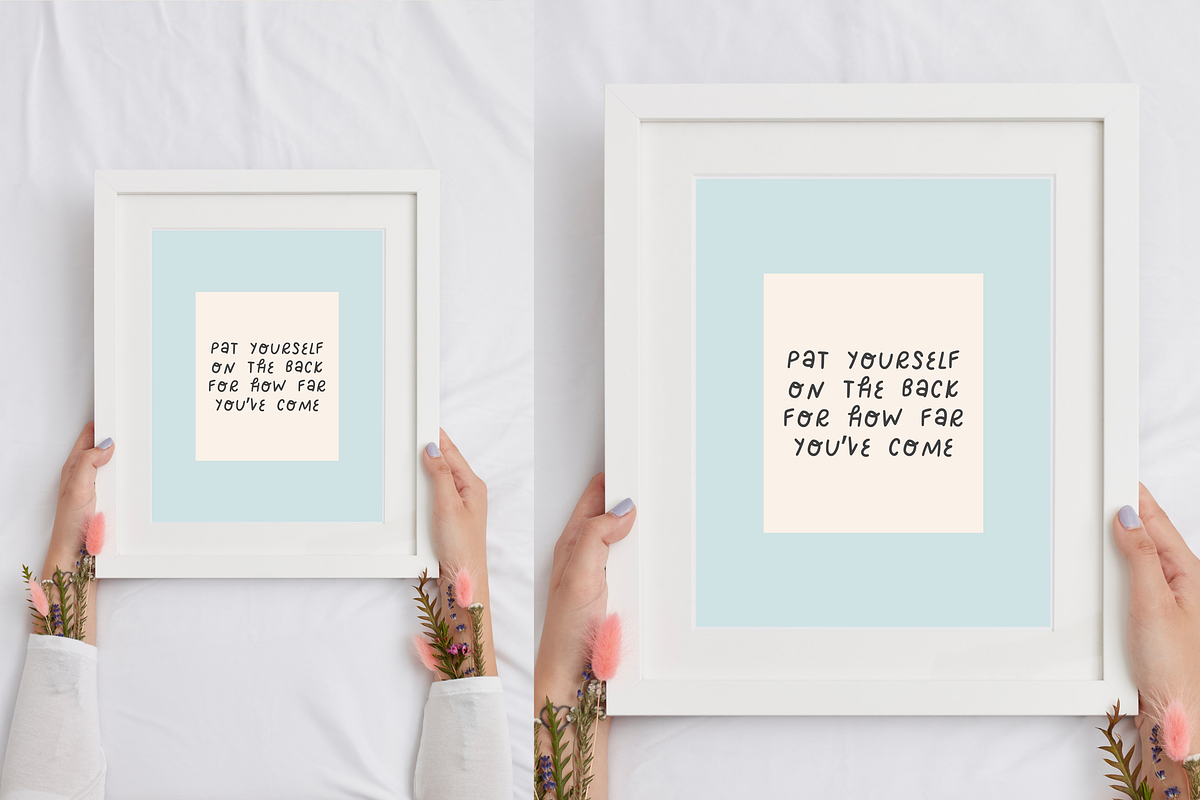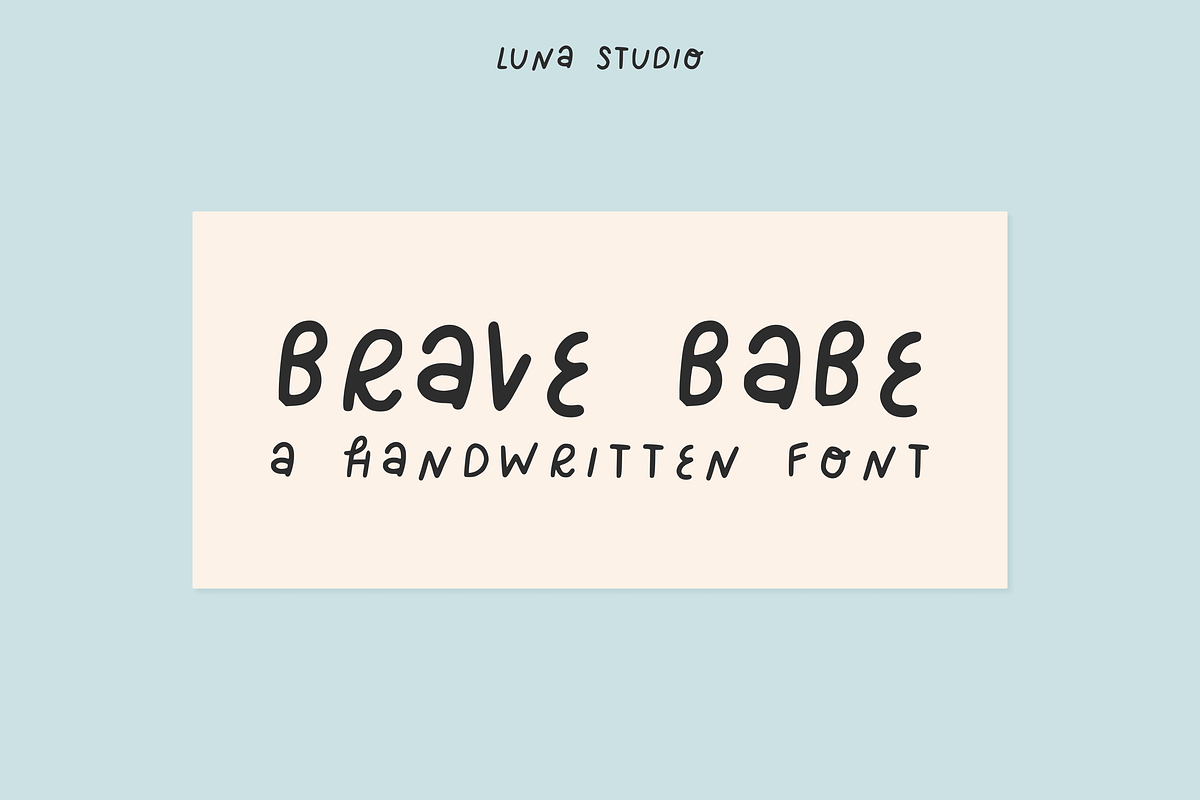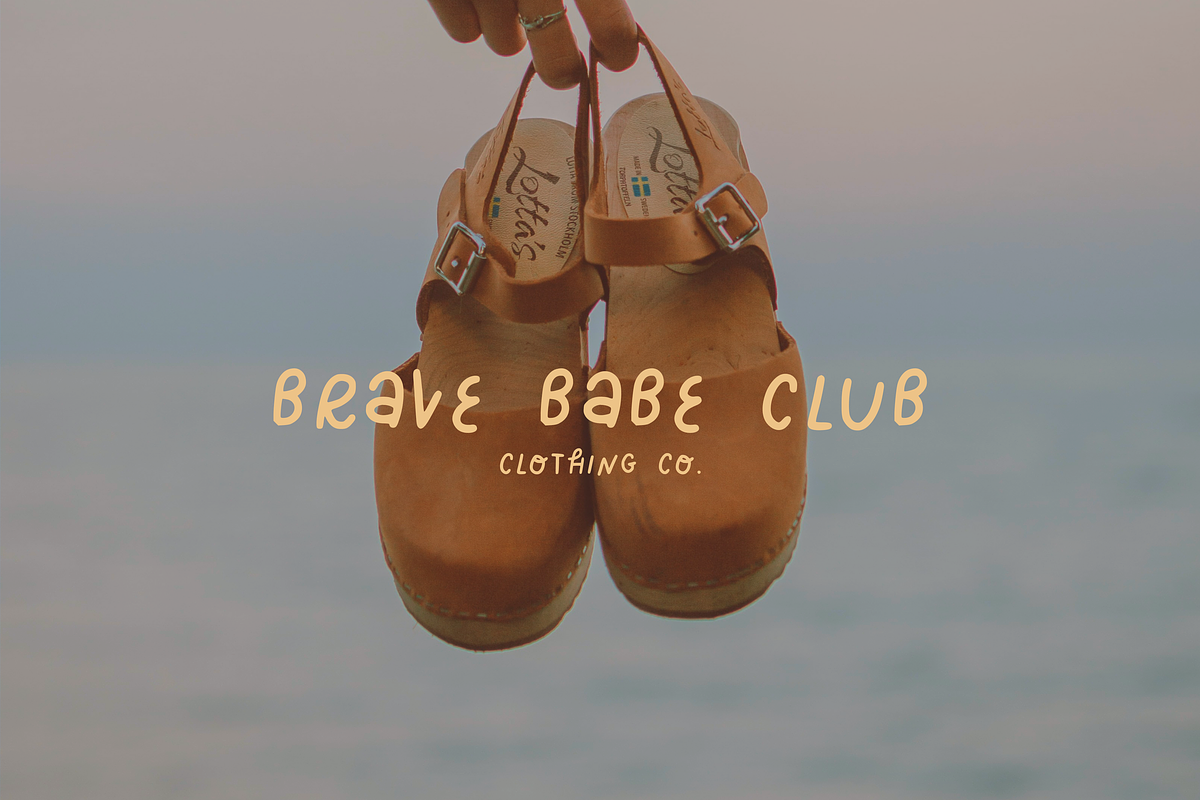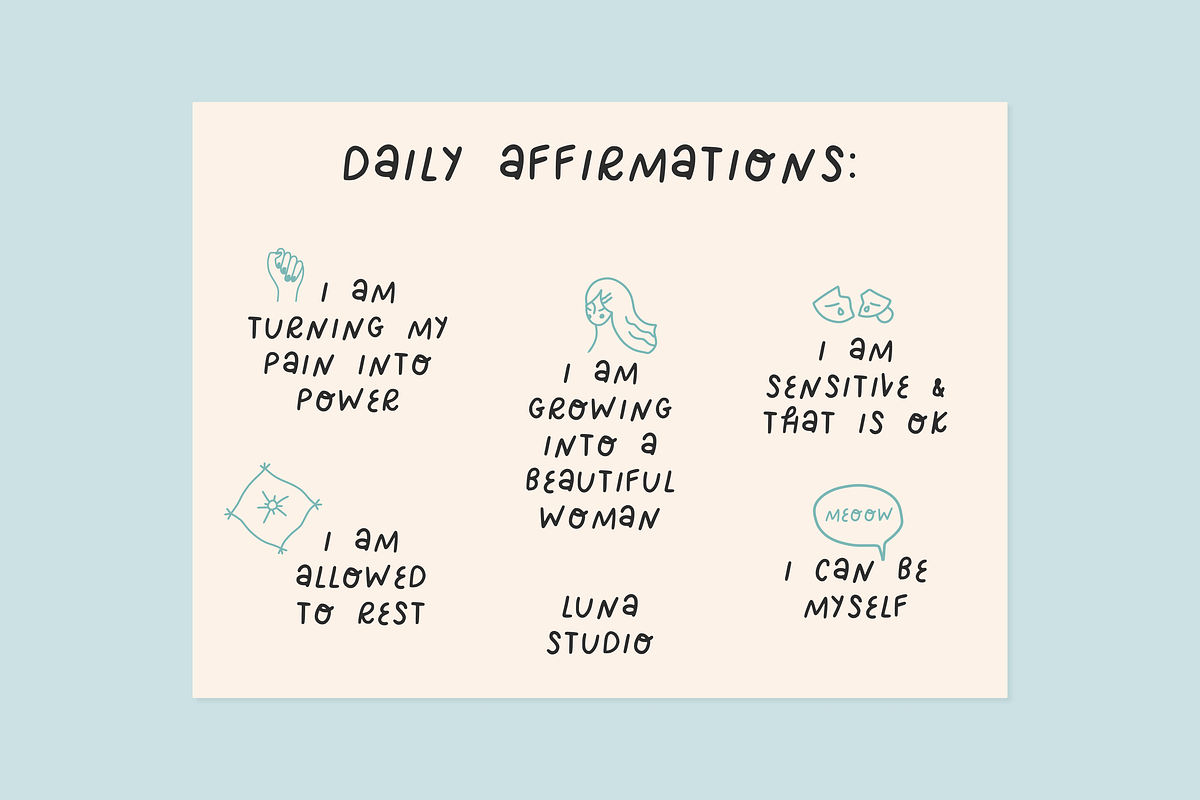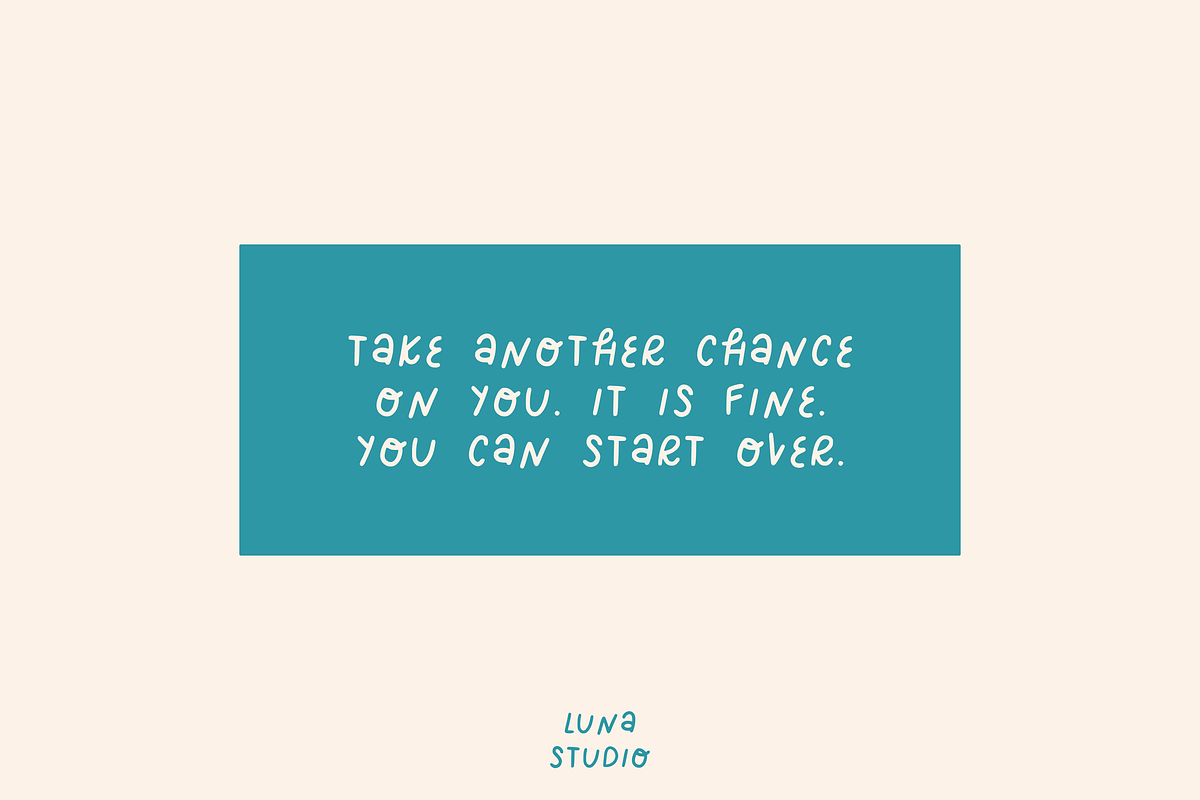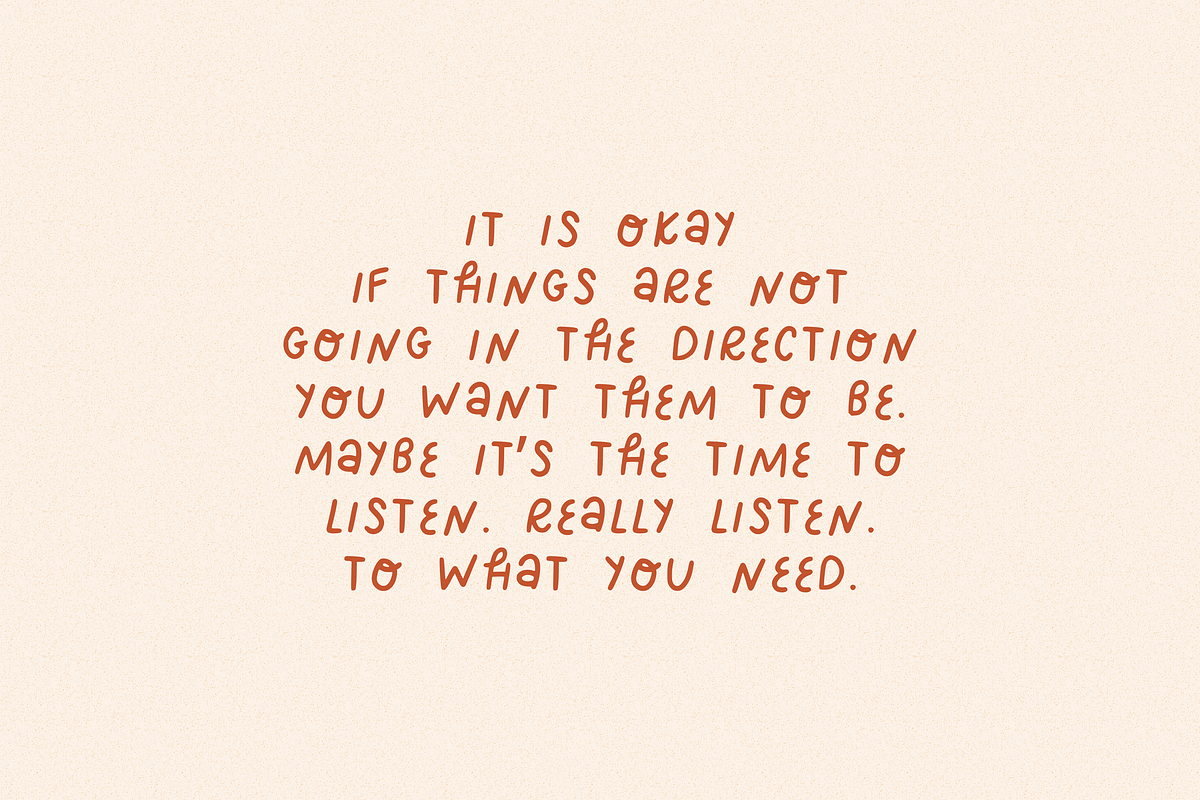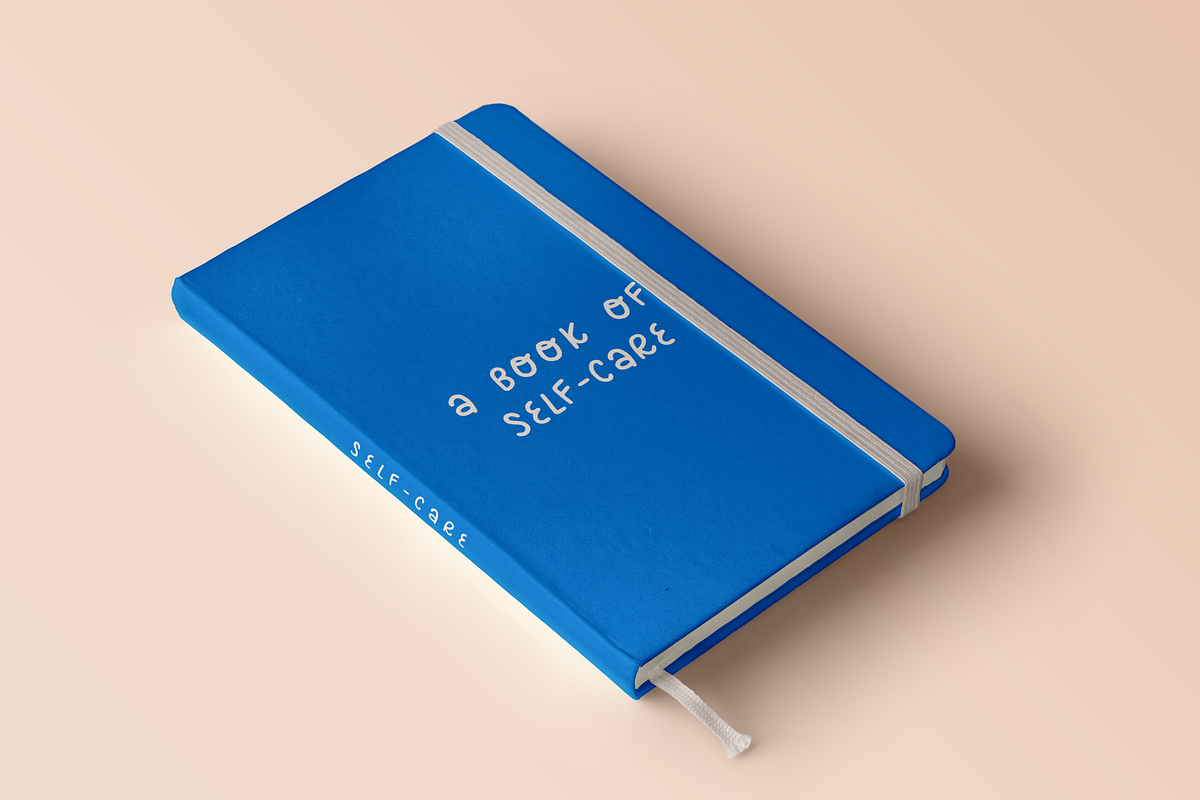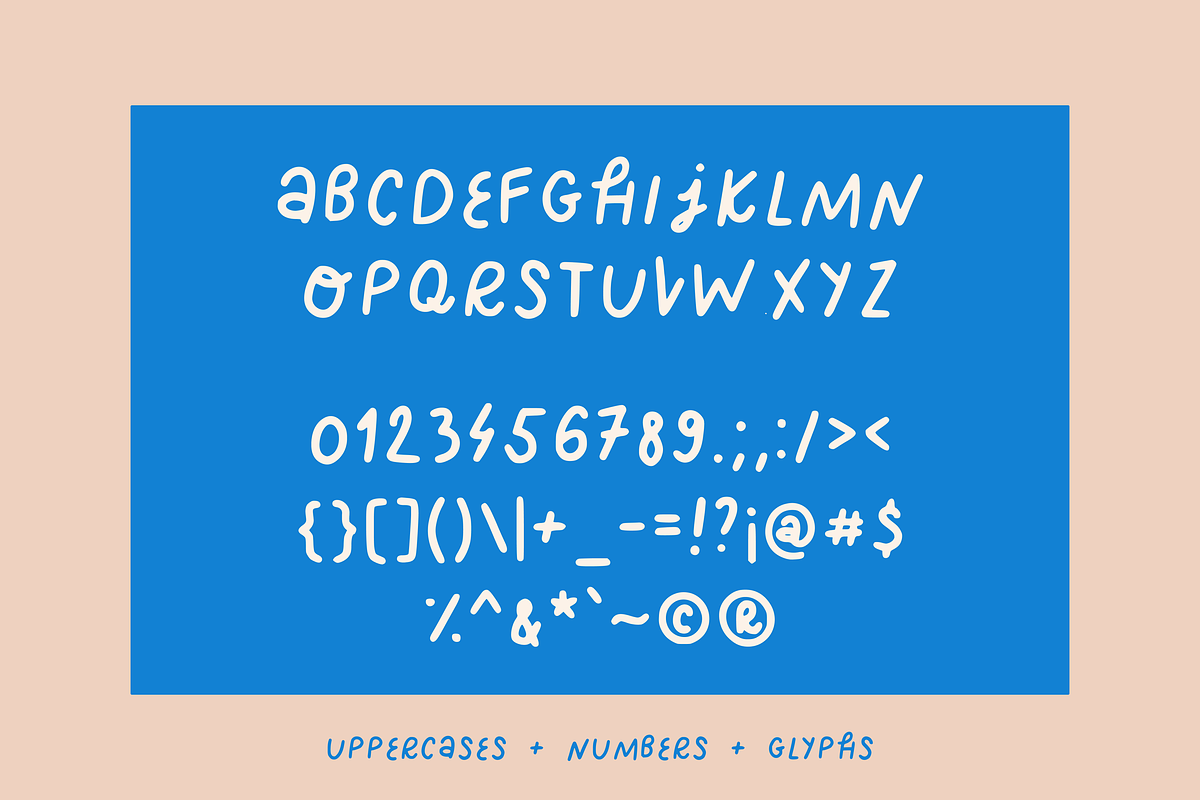
Brave Babe | A Handwritten Cute Font
Brave Babe is a fun & unique handwritten font.
This cute, feminine type has been created by hand and it's perfect for:
Uppercases & numbers & other glyphs